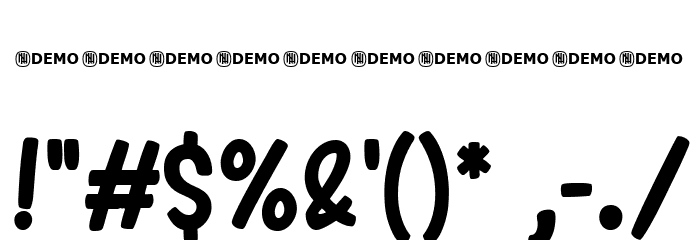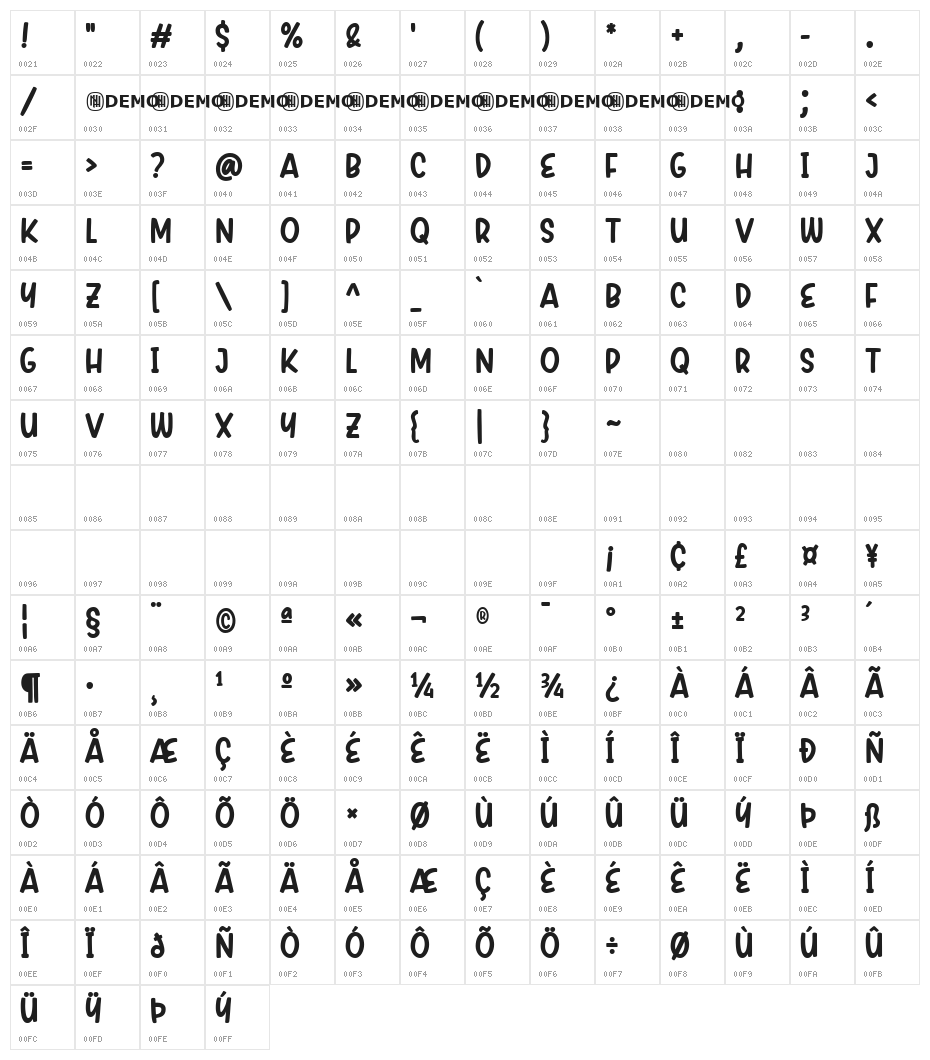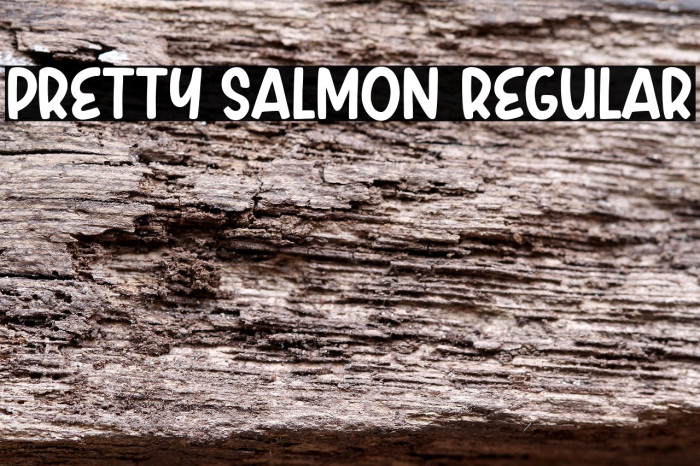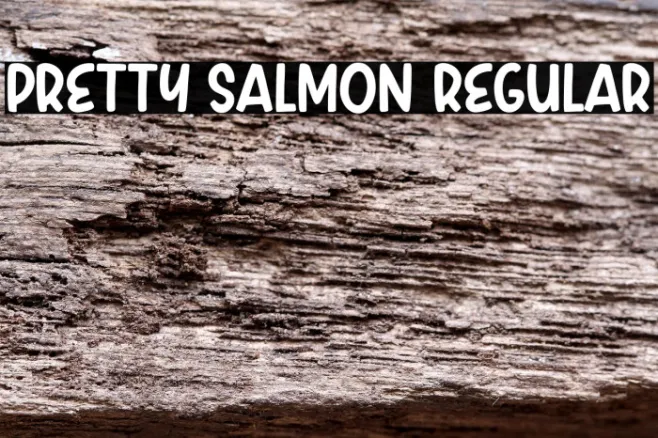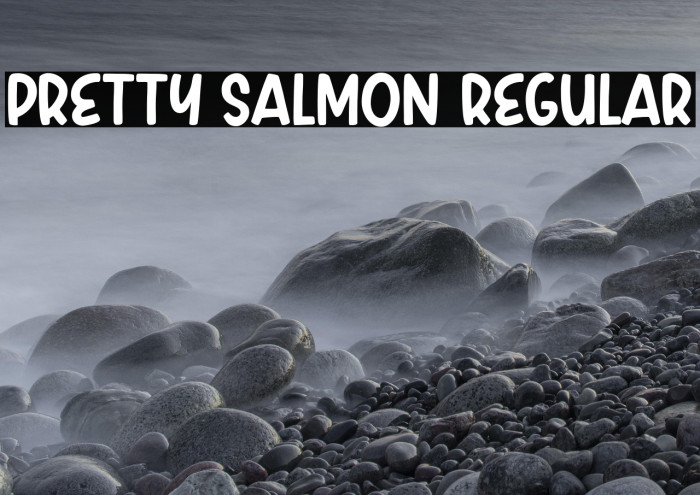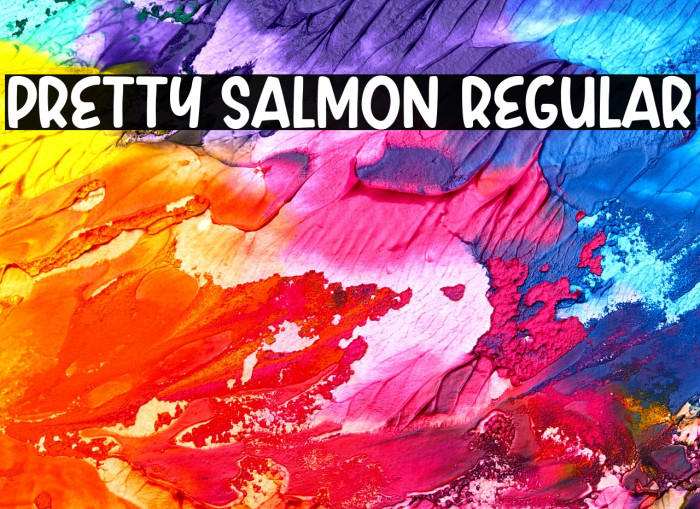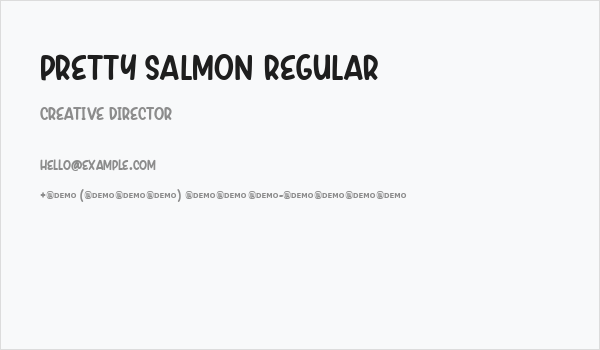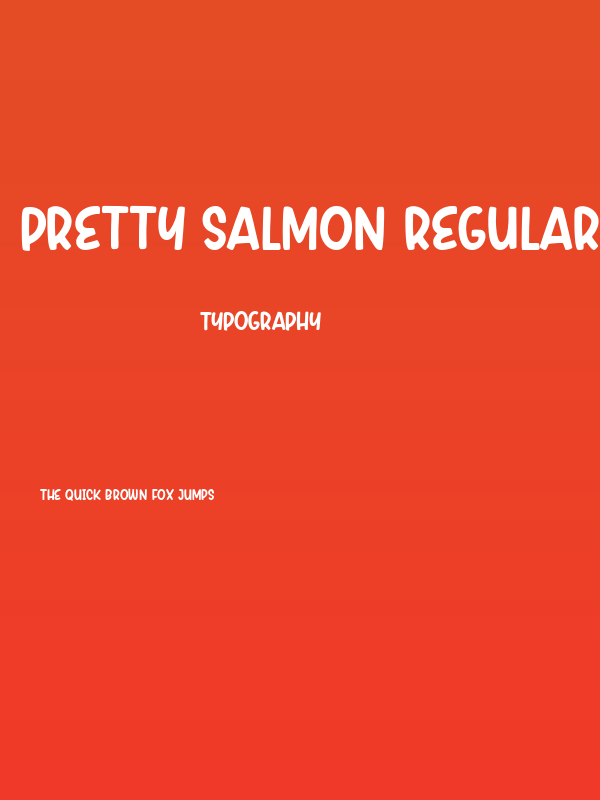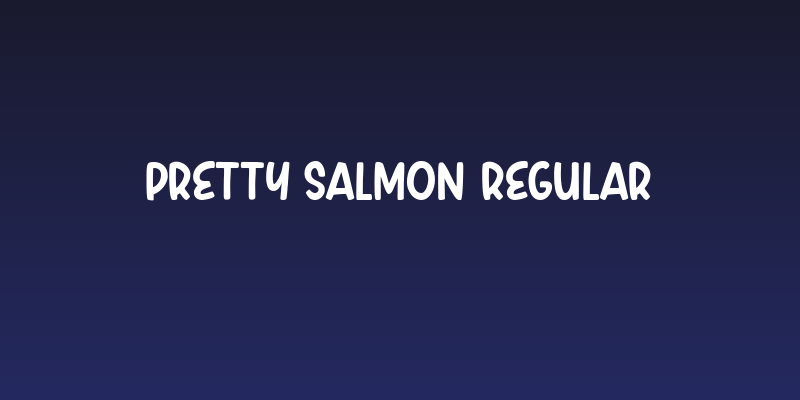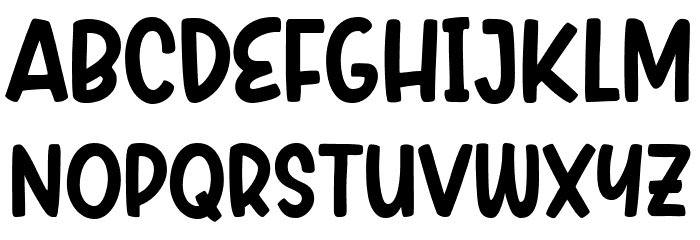
Pretty Salmon Regular Font
Pretty Salmon Regular Description
This font features a playful and bold style with rounded edges and a hand-drawn appearance. The characters are thick and uniform, giving a sense of friendliness and approachability. The uppercase and lowercase letters maintain a consistent height, while the numerals and special characters are designed to match the overall aesthetic. The font's informal and casual nature makes it suitable for projects that require a touch of whimsy and creativity. Its boldness ensures readability, even at smaller sizes, making it versatile for various design needs.